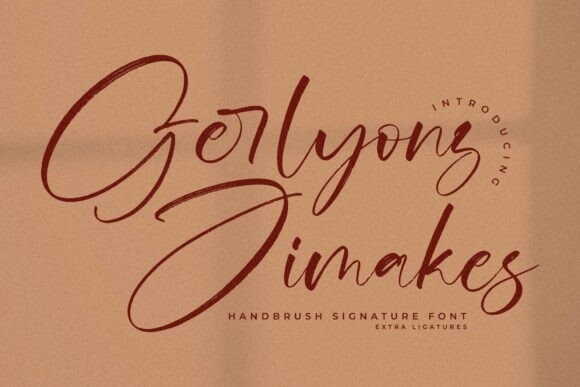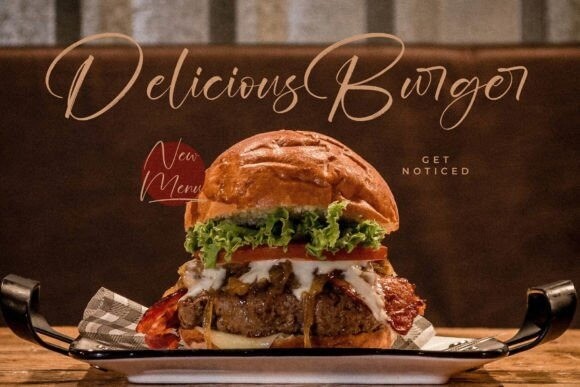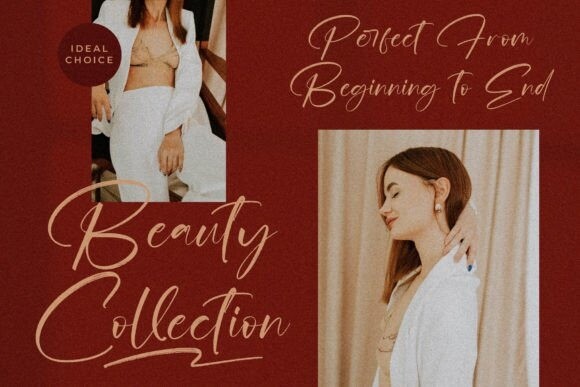
Gerlyonz Jimakes Font
Gerlyonz Jimakes – Handbrush Signature Font , from Glorytype Studio, suitable for any projects such as: logos, branding projects, homeware designs, product packaging, mugs, quotes, posters, shopping bags, t-shirts, book covers, name card, invitation cards, greeting cards, label, photography, watermark, special events, and all your other lovely projects that need a beautiful script taste.